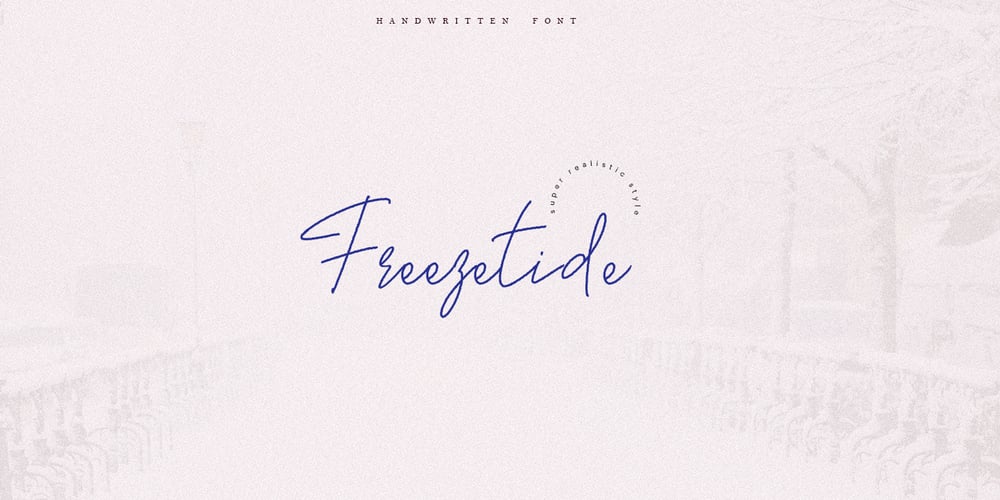
Freezetide Font Family was designed by Tanya Amos and published by Tanincreate. Freezetide contains 1 styles and family package options. Freezetide is a handwritten font with alternates, ligatures, OpenType features which give your design a natural handwriting feel with personality. Freezetide comes with 299 glyphs including multilingual characters, standard numbers, lowercase stylistic and standard alternates, discretionary ligatures for variety. Letters have jagged edges imitating dip pen writing. Using these ligatures allows you to give a realistic somewhat quirky hand-lettered look to your typography. Write the same word differently by combining the default set, alternates, standard and discretionary ligatures.